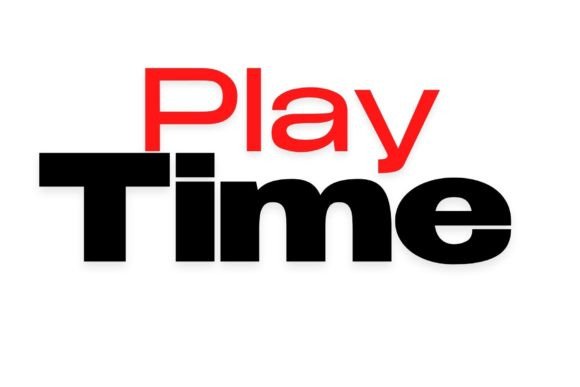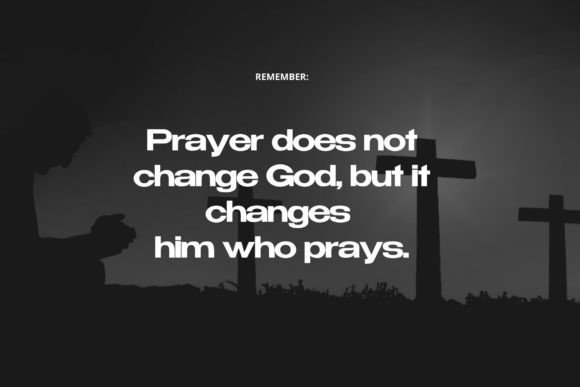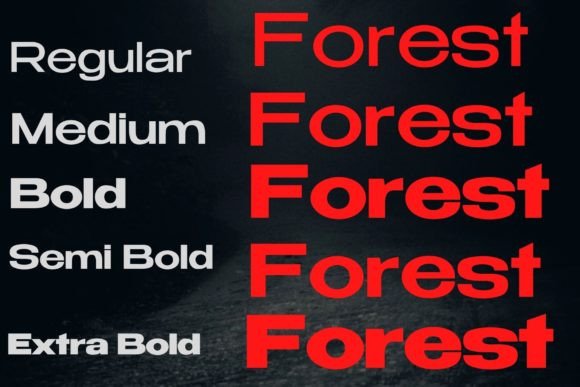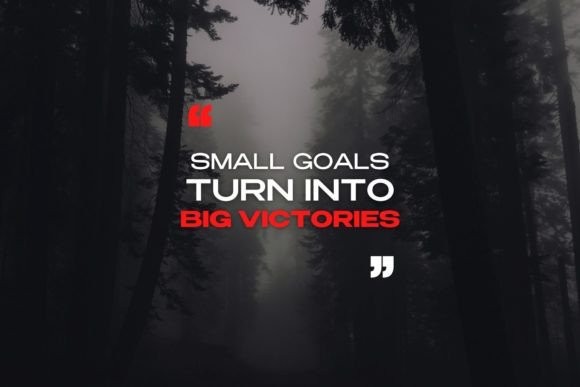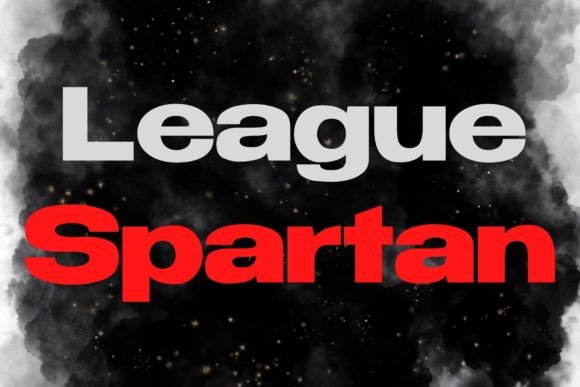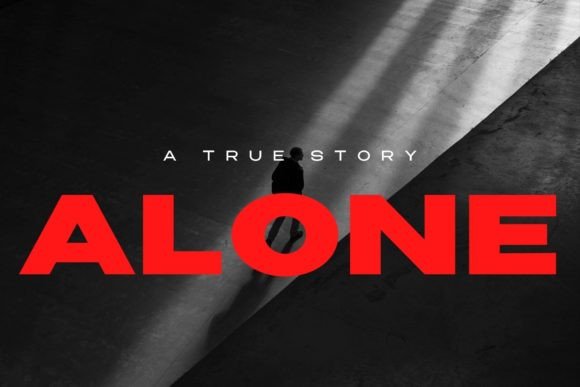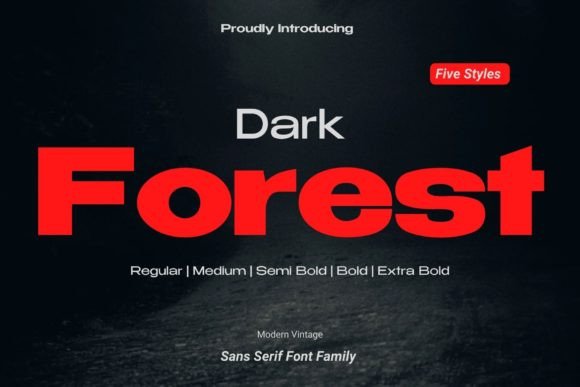
Unleash the Power of Dark Forest Font: A Versatile Sans Serif Family for Designers and Crafters
Are you tired of using the same old fonts for your designs and crafts? Look no further than the Dark Forest Font, a versatile sans serif family that is perfect for both headings and paragraphs. With its 5 weights and customized kerning, this font is a game-changer for designers and crafters alike.
What is Dark Forest Font?
Dark Forest Font is a sans serif font family that consists of 5 weights, ranging from thin to bold. This allows you to use the font for a variety of applications, from large headlines and posters to small texts and paragraphs. The font is designed to be universal, making it perfect for a wide range of design projects.
The Power of Customized Kerning
One of the standout features of Dark Forest Font is its customized kerning. The font has been carefully crafted to ensure that the kerning is more sparse in the thin style and more dense in the bold style. This means that you can use the bold style for large headlines and posters, and the thin style for small texts and paragraphs, without having to worry about adjusting the kerning.
This feature is a major time-saver for designers and crafters, as it eliminates the need to manually adjust the kerning for each project. With Dark Forest Font, you can simply choose the weight and style that best suits your project, and you’re good to go.
So, what are the benefits of using Dark Forest Font for designers and crafters? Here are just a few:
• Versatility: With 5 weights and a universal design, Dark Forest Font can be used for a wide range of projects, from brochures and posters to social media graphics and crafts.
• Time-saving: The customized kerning feature saves you time and effort, allowing you to focus on the creative aspects of your project.
• Ease of use: Dark Forest Font is easy to use, even for those who are new to design or crafting. The font is straightforward to install and use, and the different weights and styles are easy to navigate.
• High-quality design: Dark Forest Font is designed to be clean and crisp, making it perfect for both digital and print applications.
Here are a few tips and tricks to get the most out of Dark Forest Font:
• Experiment with different weights: Don’t be afraid to try out different weights and styles of Dark Forest Font to find the one that works best for your project.
• Use it for headlines and body text: Dark Forest Font is perfect for both headlines and body text, making it a great choice for brochures, posters, and other design projects.
• Pair it with other fonts: Dark Forest Font can be paired with other fonts to create a unique and eye-catching design.
In conclusion, Dark Forest Font is a versatile and powerful sans serif font family that is perfect for designers and crafters. With its 5 weights, customized kerning, and universal design, this font is a game-changer for anyone looking to take their designs to the next level. Whether you’re a seasoned designer or just starting out, Dark Forest Font is definitely worth checking out.